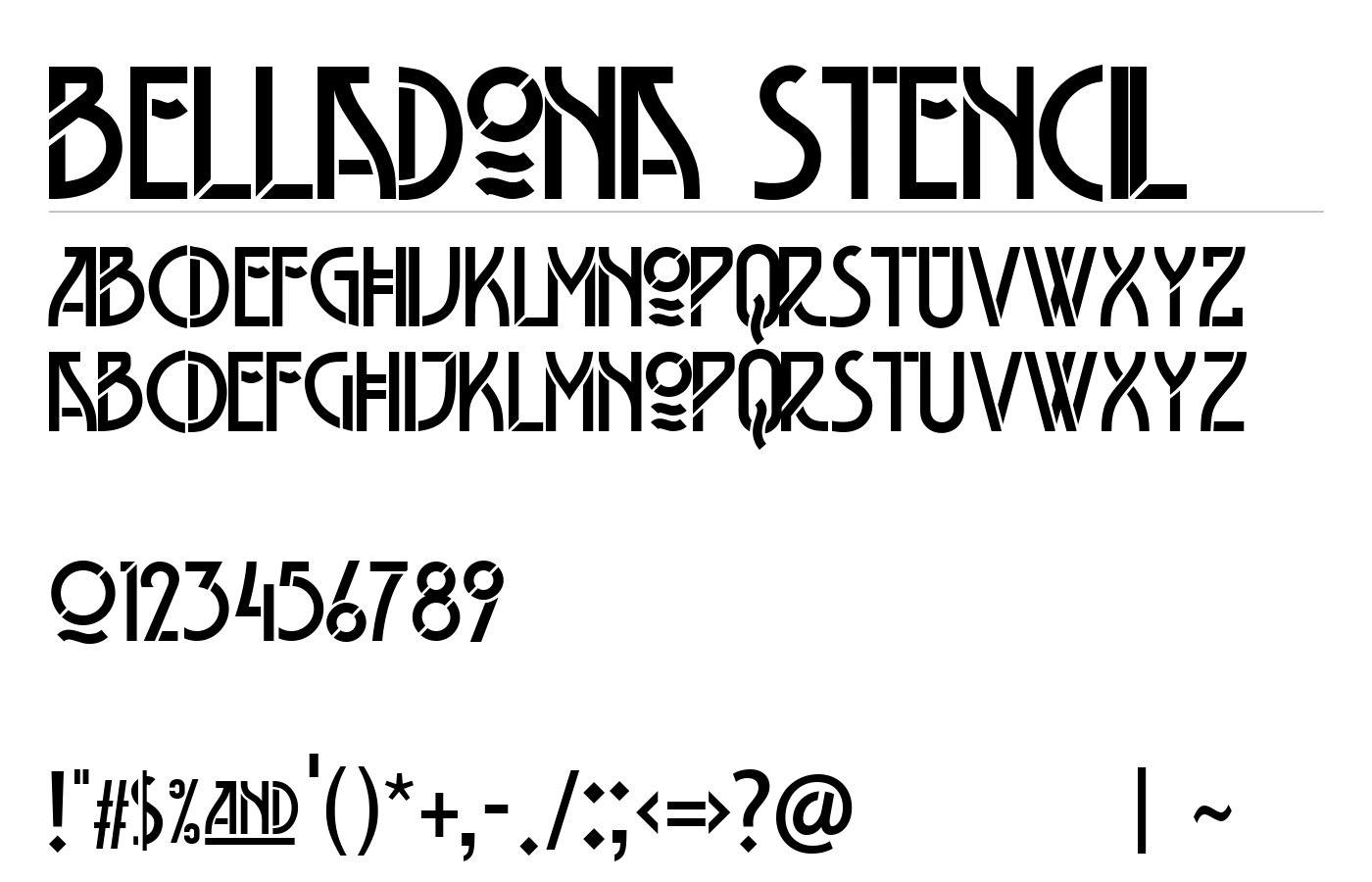
Belladona Stencil is a bold, modern sans serif font with a distinctive stencil cutout style that creates a striking visual impact. Its tall, narrow letterforms combine sharp geometric shapes with artistic flourishes, making it perfect for eye-catching headlines, posters, and branding that requires a contemporary and edgy vibe. This font works wonderfully in creative fields and fashion where a unique, statement-making appearance is desired.
Belladona Stencil Font
About Belladona Stencil Font
| Font family | Belladona Stencil Font |
| Designer | Tano Veron |